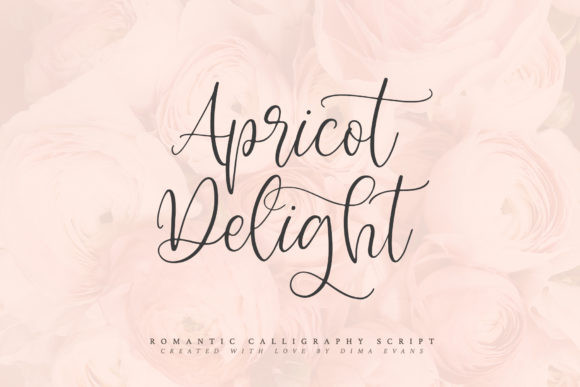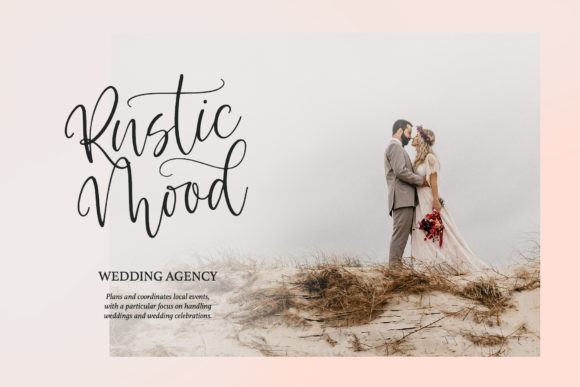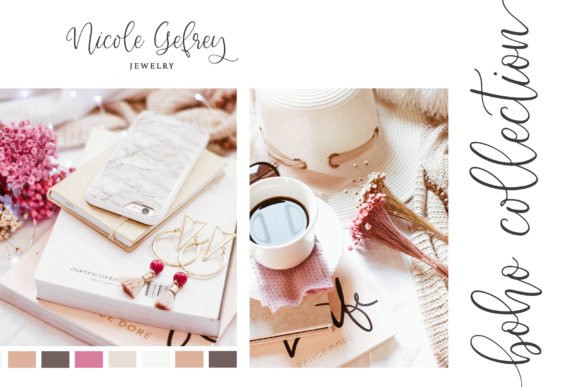
Apricot Delight Font
Apricot Delight is a summery and warm script font with a sweet feel. It’s a stunning crafting font that will make any text stand out.